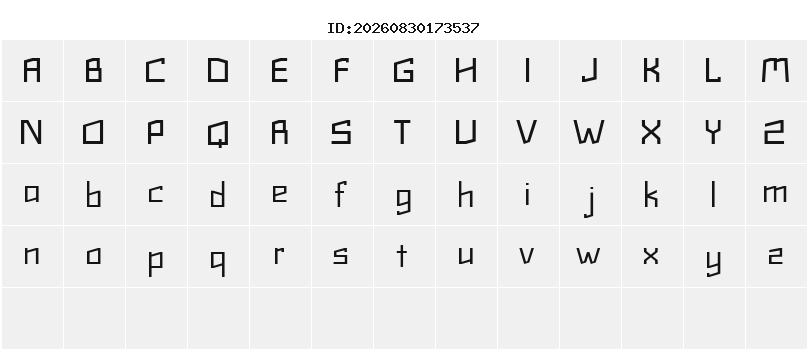
Tetra Preview
• Font Name: Tetra
• Full Font Name: Tetra
About Tetra.ttf
Tetra.ttf is a modern, elegant sans-serif font designed for ultimate readability and visual harmony. Perfect for branding, headlines, web design, and print materials.